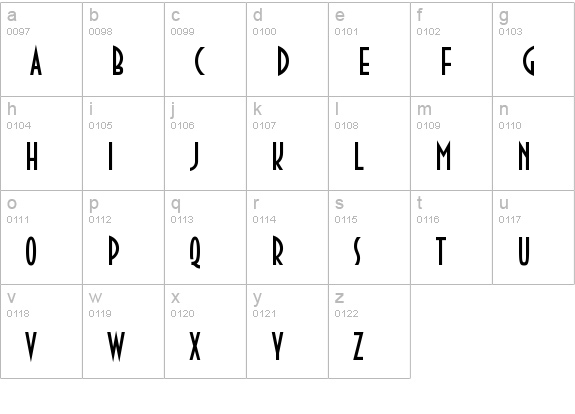
DecoTech TL Font Details
DecoTech TL is a stylish and versatile font that combines modern design elements with a touch of classic elegance. This typeface features clean lines, sharp angles, and decorative flourishes that make it perfect for a wide range of design projects. Its sleek and sophisticated appearance adds a touch of sophistication to any text or graphic layout. What sets DecoTech TL apart is that it is not only visually appealing but also extremely versatile. Whether you are designing a logo, creating a poster, or working on a branding project, this font will help you achieve a professional and polished look. And the best part? DecoTech TL is available for free download at FontsMarket.com. This means that you can easily access this high-quality font without having to worry about any extra costs. So why wait? Download DecoTech TL today and elevate your design projects to the next level with this stunning typeface.